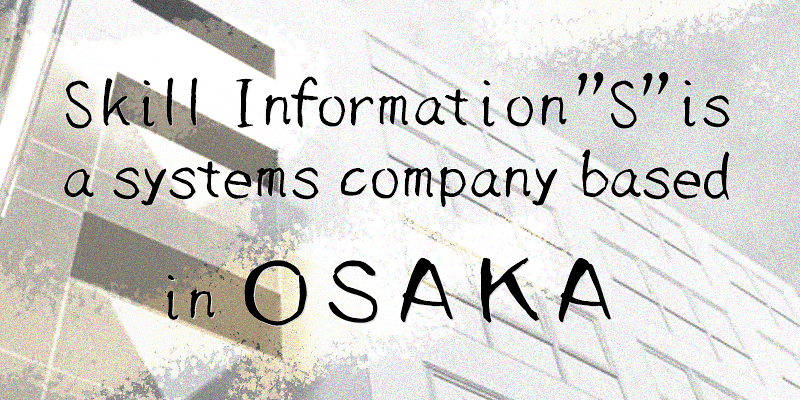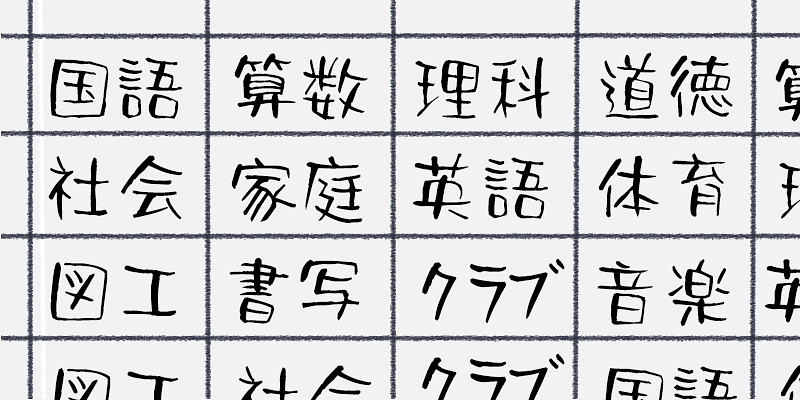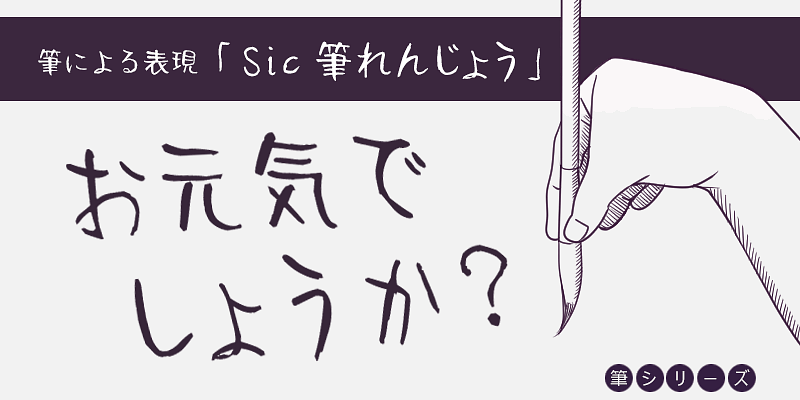
“The fonts created by the late Takeharu Suzuki were developed based on his extensive experience, ranging from lettering to bitmap fonts, word processor fonts, and brush script fonts. In particular, he pursued a ‘stress-free gothic typeface for horizontal text,’ which led to the development of the highly readable design of the standard Windows font, Meiryo.
The diversity of his typeface designs extends not only to warm, handwritten brush script typefaces and basic typefaces, but also broadly to Gothic, stylized and display typefaces. His typefaces can be used for a wide range of applications, including advertisements, videos, and digital media. They provide a sense of originality and are beloved by many.”
Skill Information"S" Co., Ltd.
Known for its focus on software development, particularly for the health services industry, Skill Information“S” found itself in the font business through a collaboration with Techno Advance Co, Ltd, in 2007.